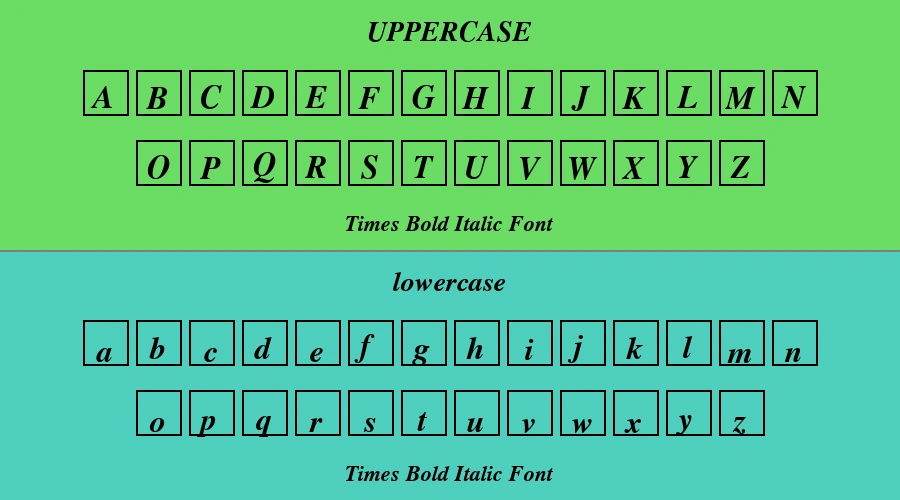
About Times Bold Italic Font
Times Bold Italic Font embodies typographic excellence through its masterful combination of sharp edges and adaptability. Created for print publications, this typeface delivers exceptional durability and creative excellence across all applications. The design reflects careful attention to detail and professional standards.
Advanced capabilities include distinctive convex bowls and versatile historical alternates, giving designers creative control. When used in research articles, Times Bold Italic Font exhibits remarkable data presentation. The harmonious balance between stem weight and user perception sets this typeface apart.